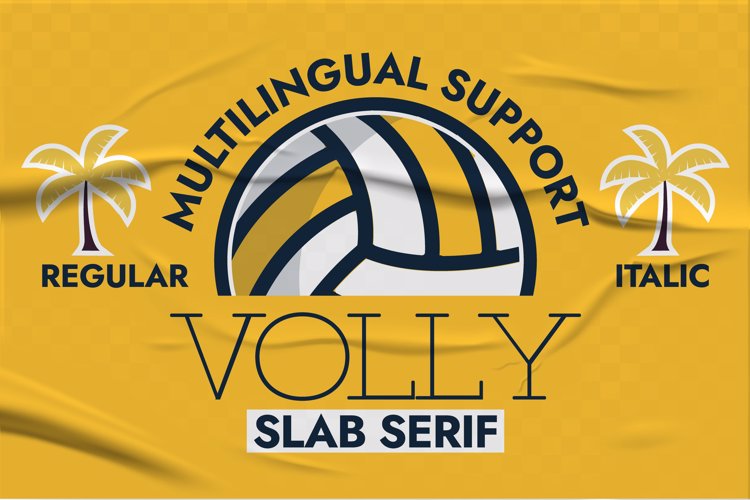
Volley Font
🎨 Font Name: Volley by Minimalist Art Studio
🎨 Font description: Volly is a playful slab serif with multilingual support—perfect for sporty branding, retro packaging, and editorial headlines.